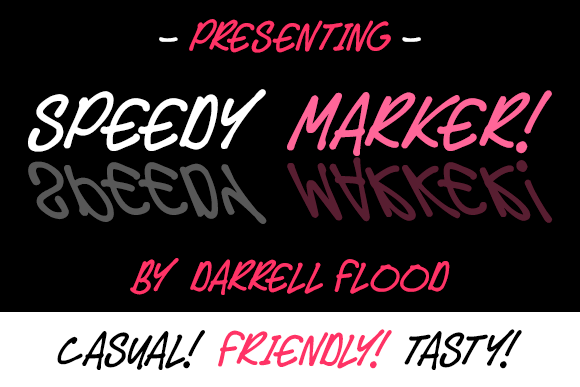
HomeScript FontsSpeedy Marker Font Script Fonts Speedy Marker Font FacebookTwitterPinterestWhatsApp About Speedy Marker Font Speedy Marker is a fun and casual font with a bold twist. DOWNLOAD NOW People also explored Pennellino Font Mexciko Houson Font All Night Ethelyne Font Little Waves Font Kehlani Font Rattoney – Bold Script Font Dreadscar Font Easy Tiles 140 0 TagsSpeedy Marker Font Previous articleHerfismun FontNext articleZaynudine Font LEAVE A REPLY Cancel reply Comment: Please enter your comment! Name:* Please enter your name here Email:* You have entered an incorrect email address! Please enter your email address here Website: Save my name, email, and website in this browser for the next time I comment. Personal Use Free Arnitta Callina Personal Use Free Read more about this font Adlanta Personal Use Free Read more about this font Messages Personal Use Free Read more about this font Browie Personal Use Free Read more about this font BLOG Where to Buy American Fonts Online in 2024 Where to Buy American Fonts Online: The Ultimate Guide for 2024 Looking for the perfect American font to elevate your design projects? You're in the... Elegant Wedding Invitation Fonts – Handwritten & Script Fonts Free Fonts Risk: Why Free Fonts Can Be Dangerous for Designers Transform Your Website: Elevate Your Typography with 7 Best Web Font Generators